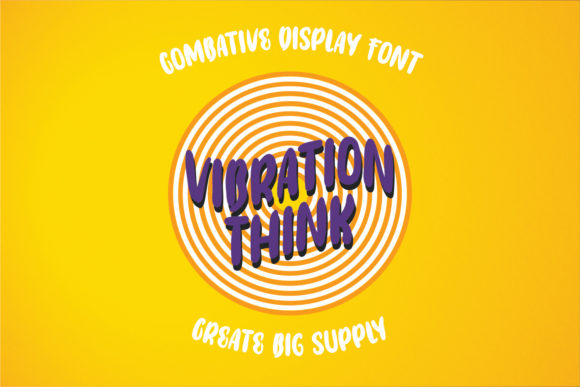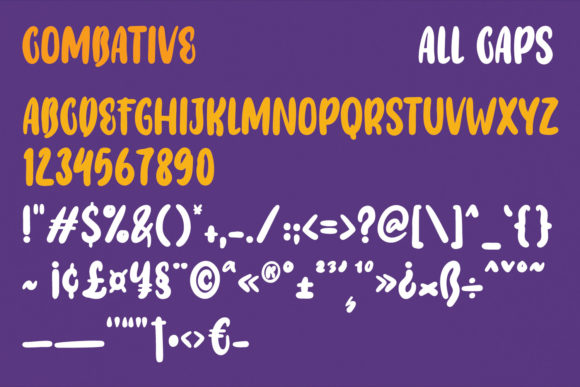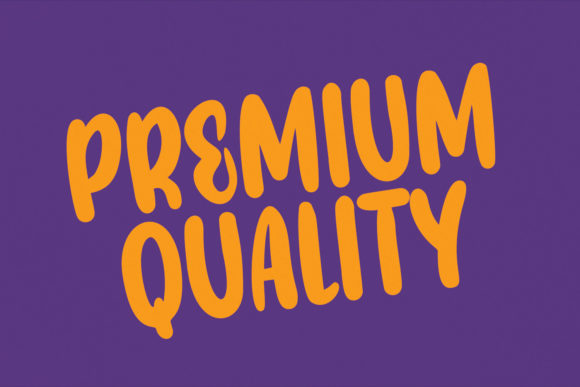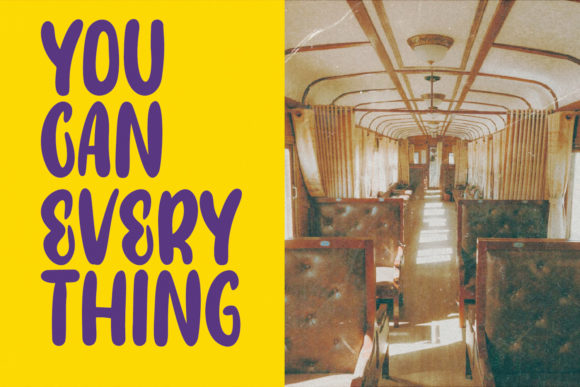
Introducing Combative Font: Add a Joyful Touch to Your Designs
Are you tired of using the same old fonts in your designs? Do you want to add a playful and cool touch to your creative projects? Look no further than Combative Font! This amazing display font is sure to bring a joyful vibe to your designs and make them stand out from the crowd.
What is Combative Font?
Combative Font is a unique and modern display font that is perfect for designers and crafters who want to add a fun and playful touch to their work. With its bold and eye-catching design, this font is sure to grab attention and make your designs pop. Whether you’re working on a logo, poster, or social media graphic, Combative Font is the perfect choice.
Key Features of Combative Font
• Cool and Playful Design: Combative Font has a fun and lively design that is sure to add a joyful touch to your designs.
• Display Font: This font is specifically designed as a display font, making it perfect for headlines, titles, and other attention-grabbing elements.
• Unique and Modern: Combative Font has a unique and modern design that will set your designs apart from the crowd.
How to Use Combative Font in Your Designs
Using Combative Font in your designs is easy! Here are a few ways you can incorporate this amazing font into your work:
• Logos and Branding: Use Combative Font to create a fun and playful logo that will help your brand stand out.
• Posters and Flyers: Add Combative Font to your posters and flyers to grab attention and make your message pop.
• Social Media Graphics: Use Combative Font to create eye-catching social media graphics that will help your posts stand out.
• Signs and Banners: Combative Font is perfect for signs and banners, adding a fun and playful touch to your message.
Why Choose Combative Font?
There are many fonts to choose from, but Combative Font stands out from the rest. Here are a few reasons why:
• Unique Design: Combative Font has a unique and modern design that will set your designs apart from the crowd.
• Easy to Read: Despite its playful design, Combative Font is easy to read, making it perfect for headlines and titles.
• Versatile: Combative Font can be used in a variety of designs, from logos and branding to posters and social media graphics.
Tips for Getting the Most Out of Combative Font
Here are a few tips for getting the most out of Combative Font:
• Use it Sparingly: While Combative Font is fun and playful, it can be overwhelming if used too much. Use it sparingly to add a touch of personality to your designs.
• Experiment with Colors: Combative Font looks great in a variety of colors. Experiment with different colors to find the perfect combination for your design.
• Pair it with Other Fonts: Combative Font pairs well with other fonts. Experiment with different font combinations to find the perfect pairing for your design.
Combative Font is a cool and playful display font that is sure to add a joyful touch to your designs. With its unique and modern design, this font is perfect for designers and crafters who want to make their designs stand out. Whether you’re working on a logo, poster, or social media graphic, Combative Font is the perfect choice. So why wait? Download Combative Font today and start adding a playful touch to your designs!